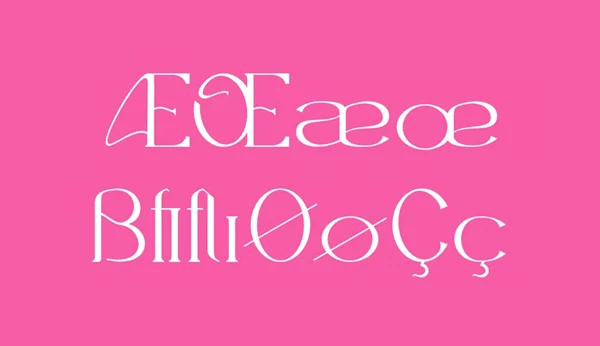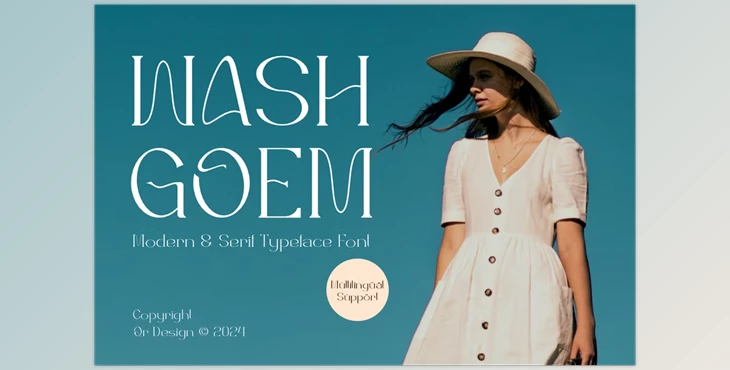
Washgoem - Modern & Serif Typeface Font: Introducing Washgoem Font, a versatile serif display font designed to add authenticity and style to your projects. Whether you're working on a branding project, poster, logo, sports-related design, or any other creative endeavour, Washgoem stands out in many contexts.
How can we create modern, sports-related logos?
You can use "Washgoem - Modern & Serif Typeface Font."
The main features of Washgoem Font include uppercase and lowercase characters, ligatures, and alternates, providing flexibility and customization options. Additionally, it offers numeral and punctuation characters, multilingual support, and an extended character set for enhanced versatility.
With Washgoem Font, you can effortlessly elevate your designs.